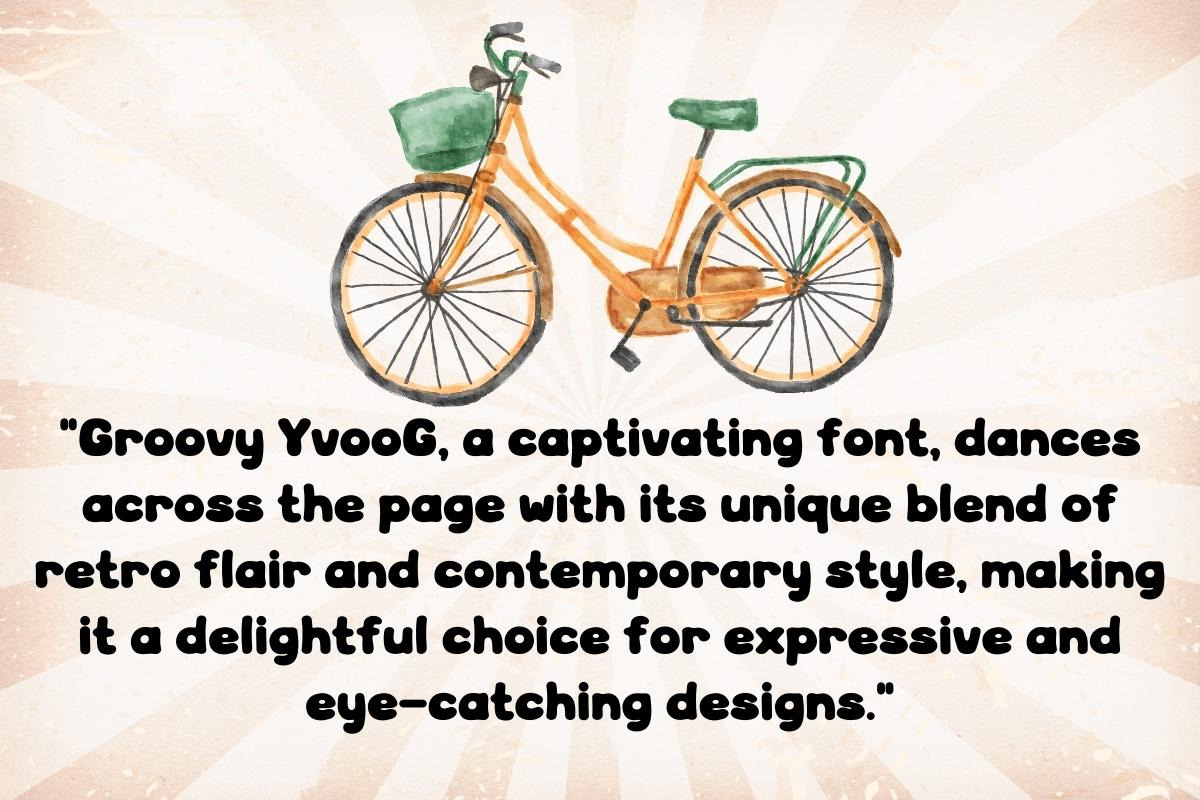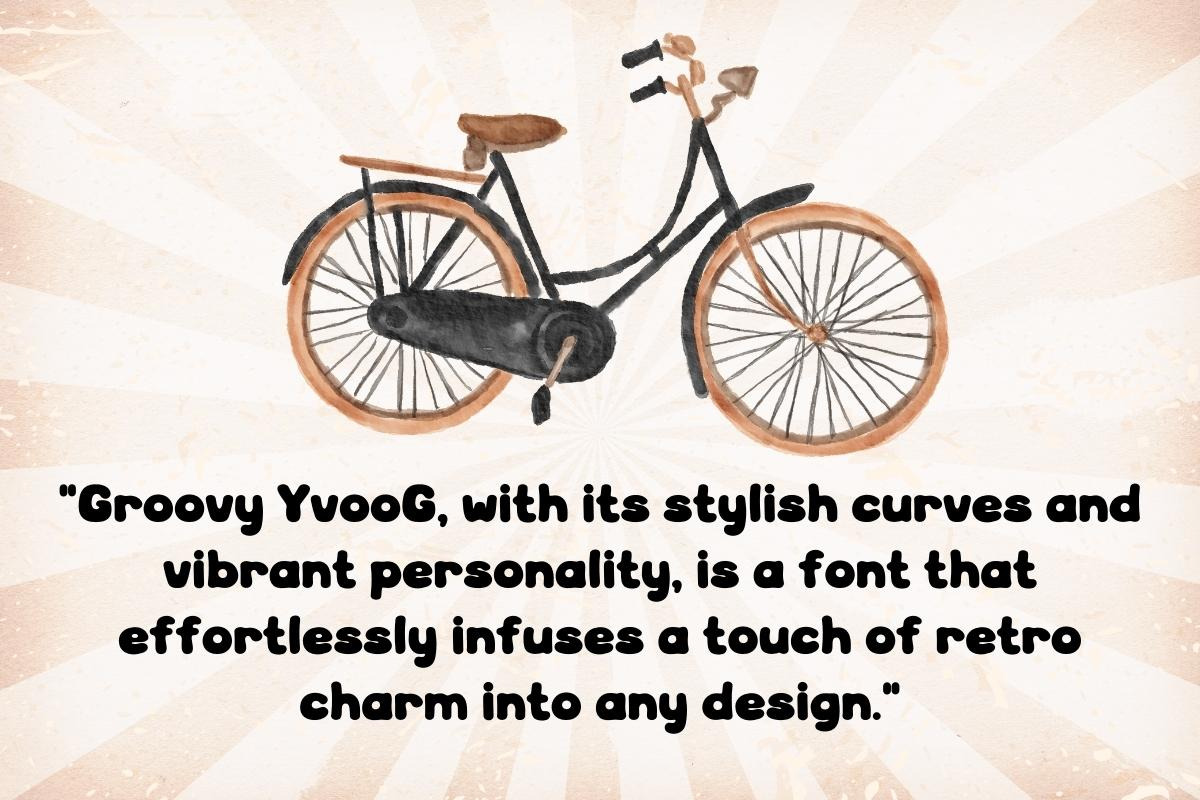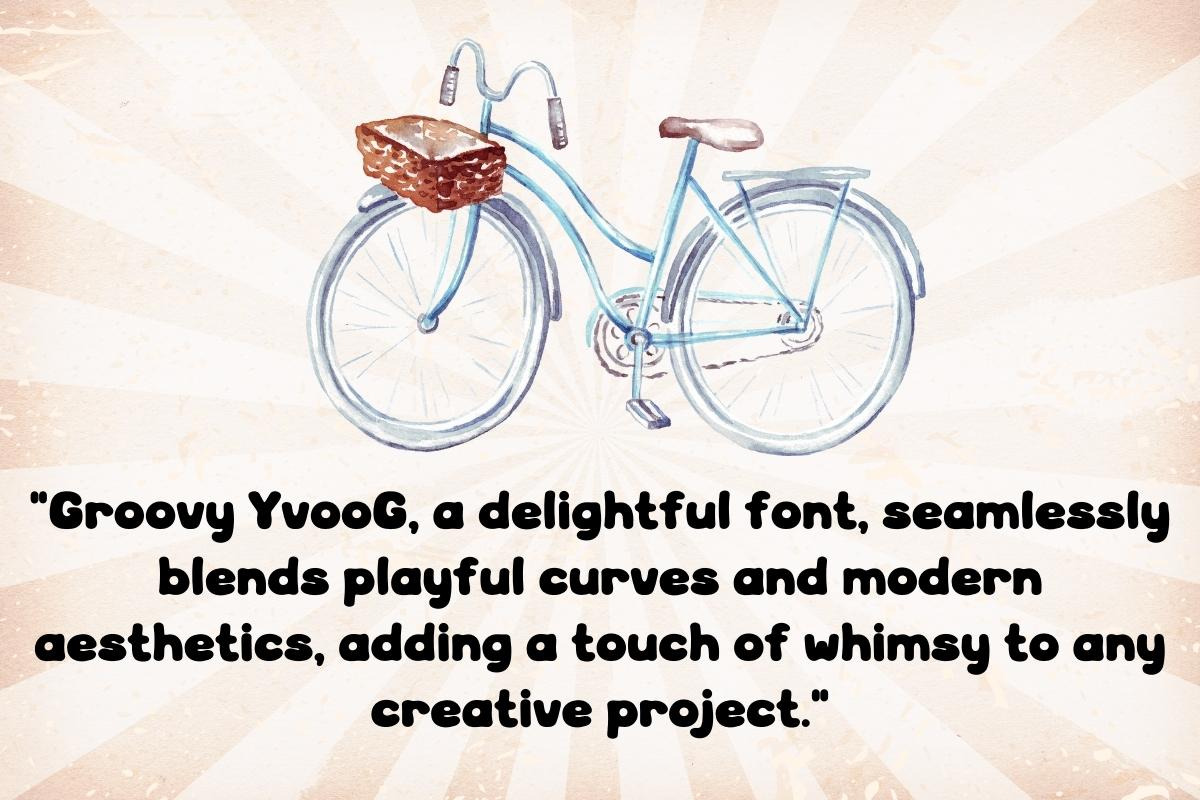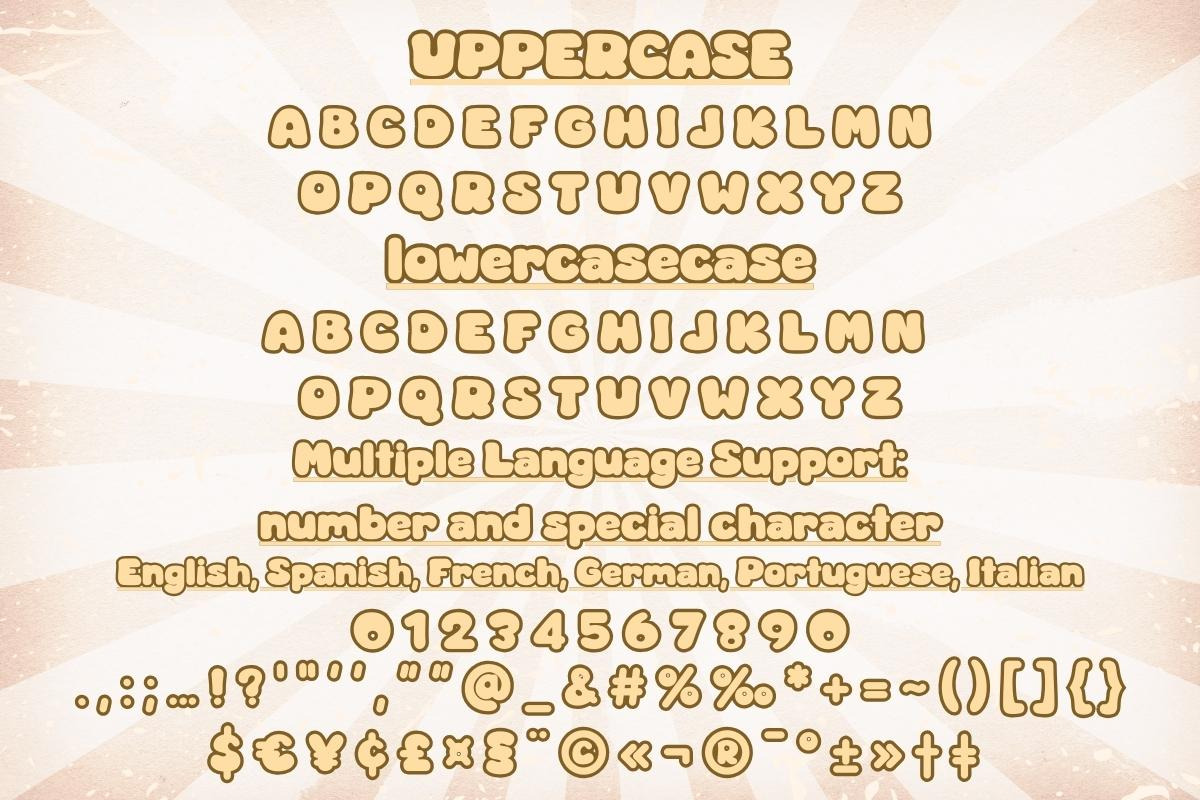
Groovy YvooG - Handwritting
"Groovy YvooG, an enchanting font, exudes a harmonious blend of elegance and playfulness, casting a captivating spell on any written expression."